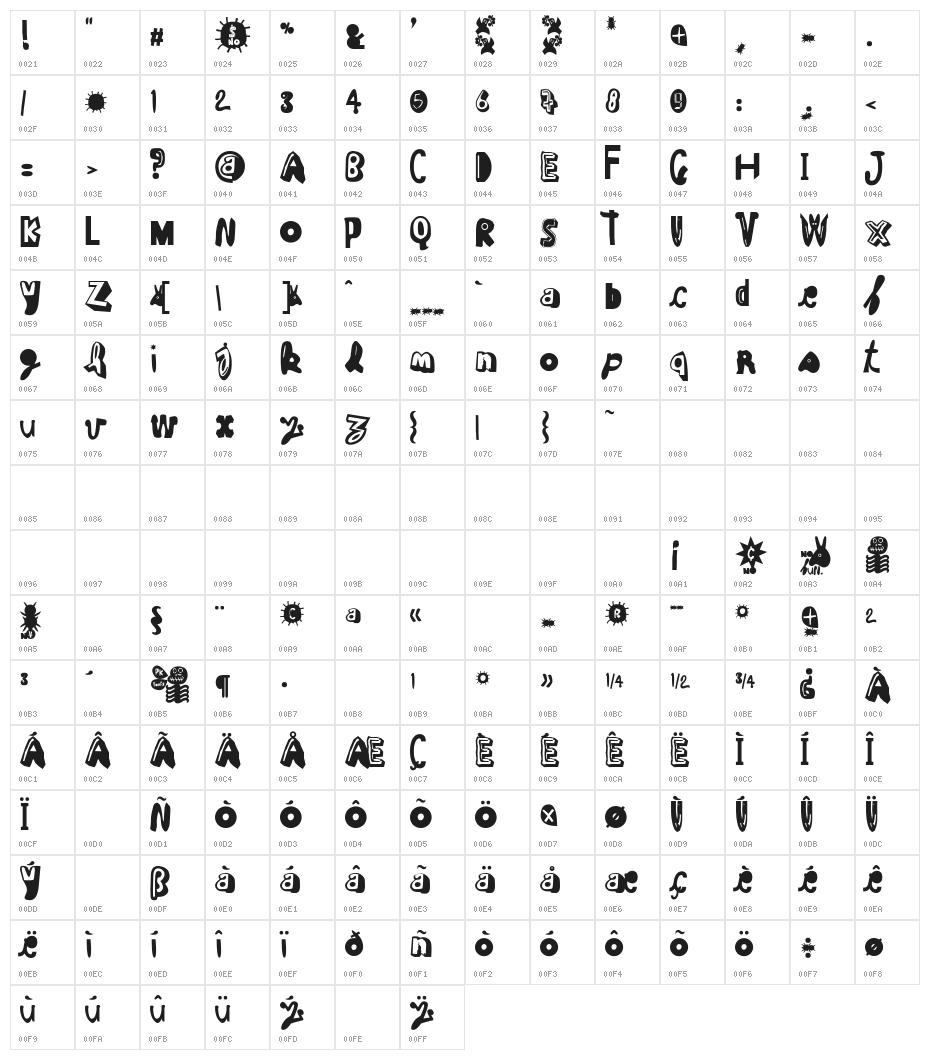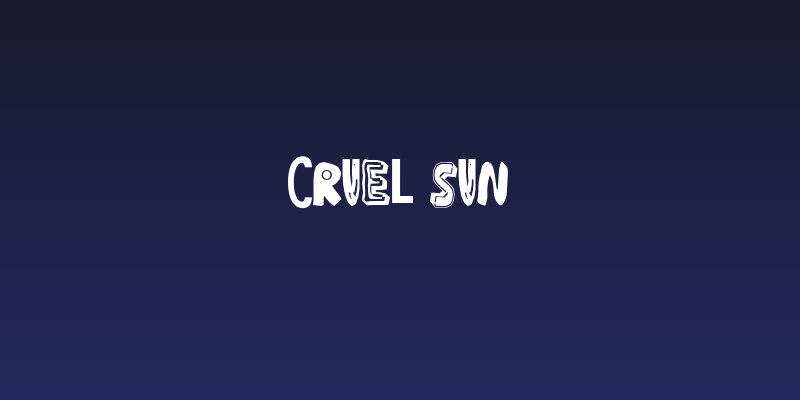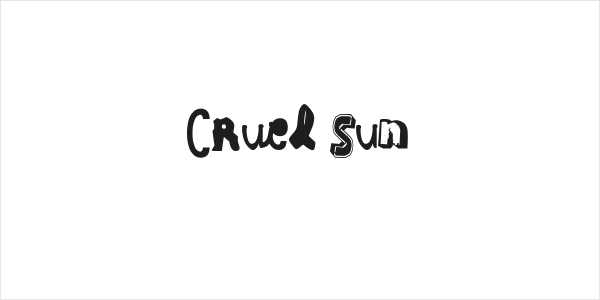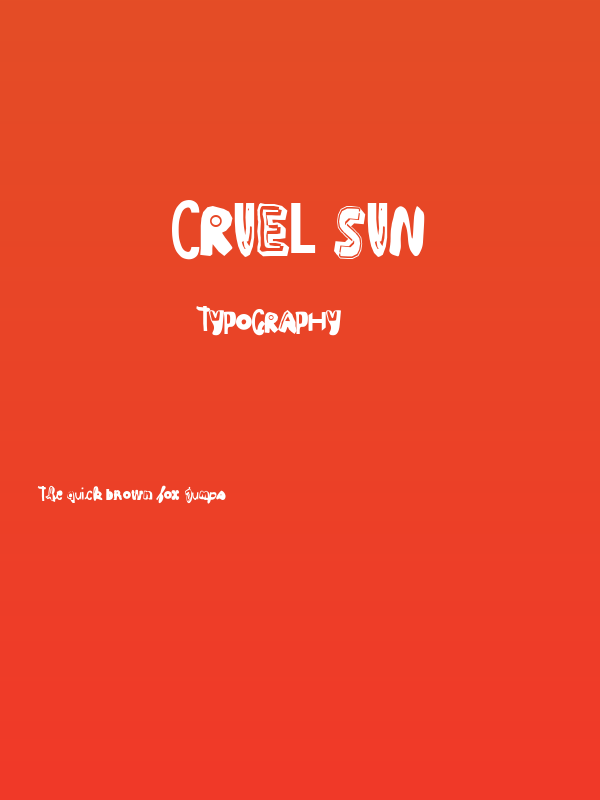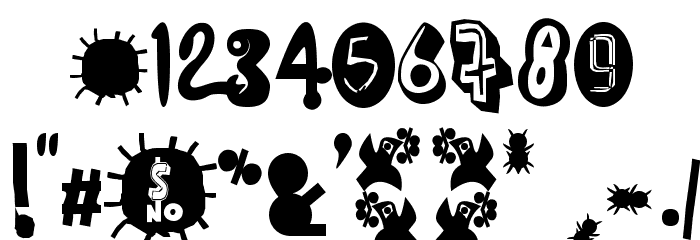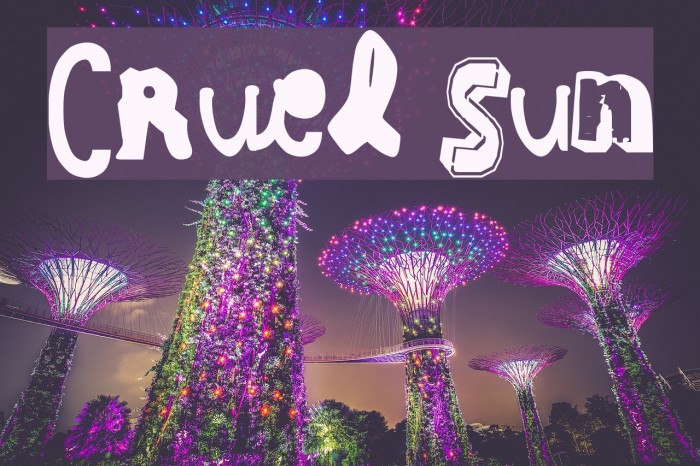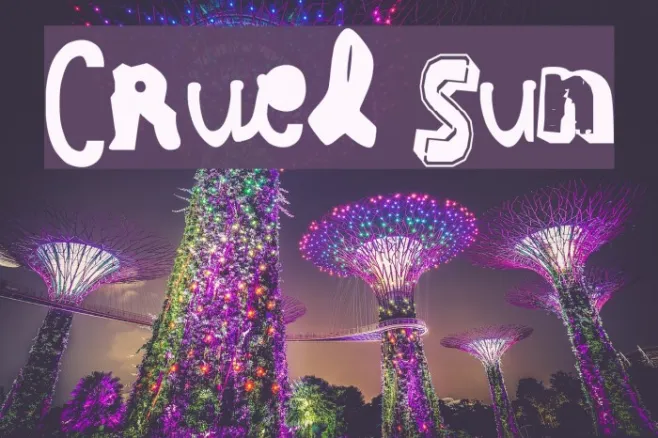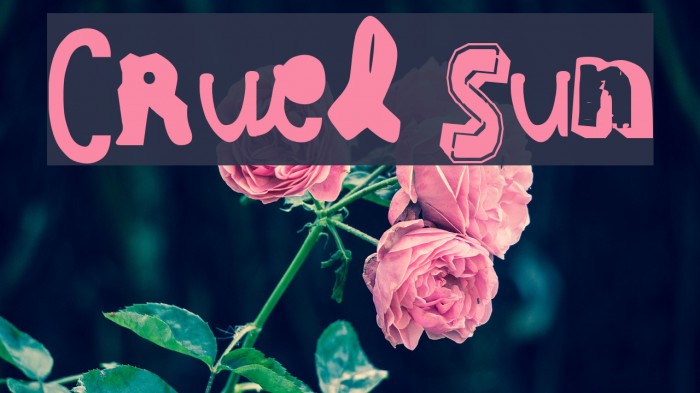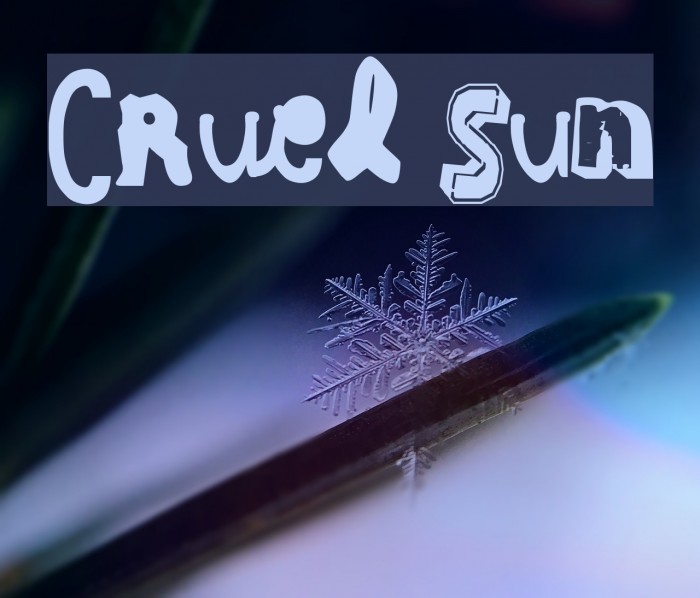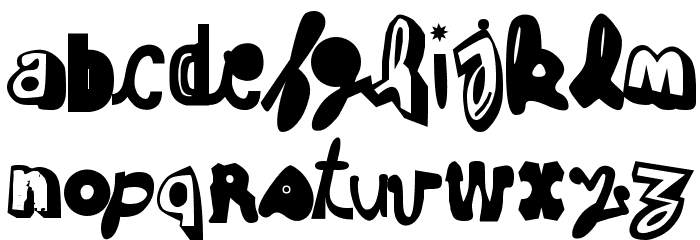
Cruel Sun Font
Cruel Sun Description
This font features a bold and playful design with a highly decorative and artistic style. Each character is uniquely crafted with exaggerated and whimsical elements, giving it a dynamic and energetic appearance. The uppercase letters are bold and varied, with some incorporating shadow effects and others featuring unique shapes and embellishments. The lowercase letters continue this creative theme, with a mix of rounded and angular forms. Numbers and special characters are equally distinctive, with some incorporating graphic elements like sun motifs and abstract shapes. This font's eclectic and vibrant style makes it stand out, ideal for projects that require a strong visual impact.
CRUEL-SUN UPPERCASE
CRUEL-SUN LOWERCASE
CRUEL-SUN OTHER CHARS
| Proposed Projects | Ideal for posters, album covers, children's books, and any project needing a bold, artistic flair. |